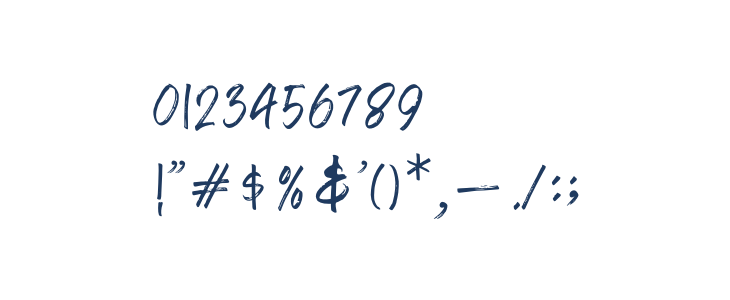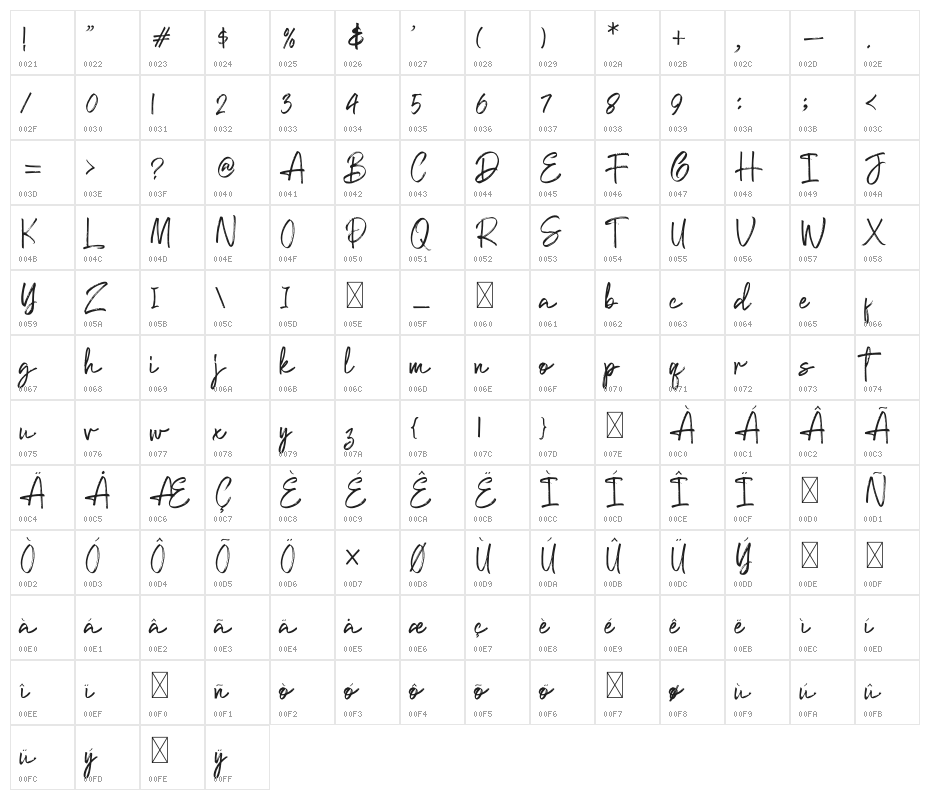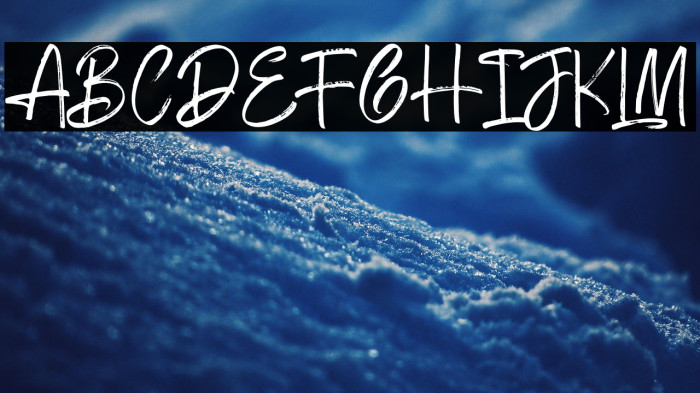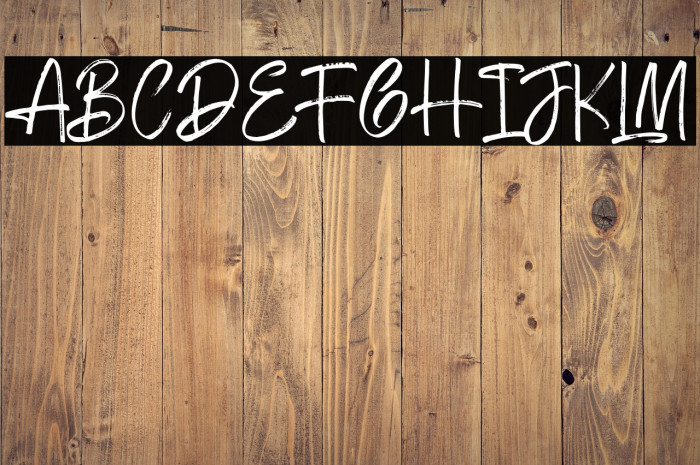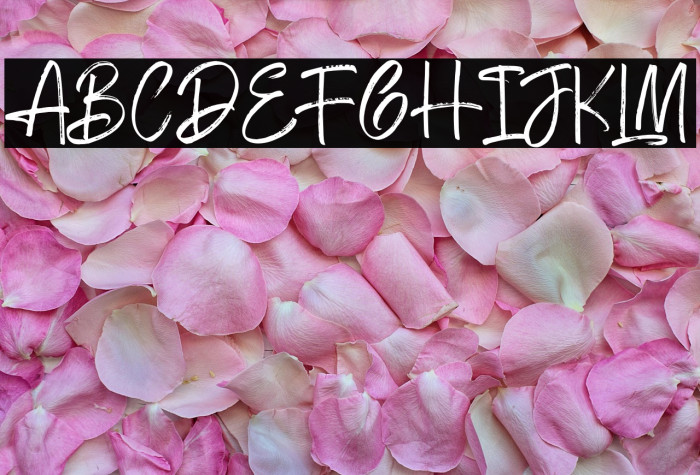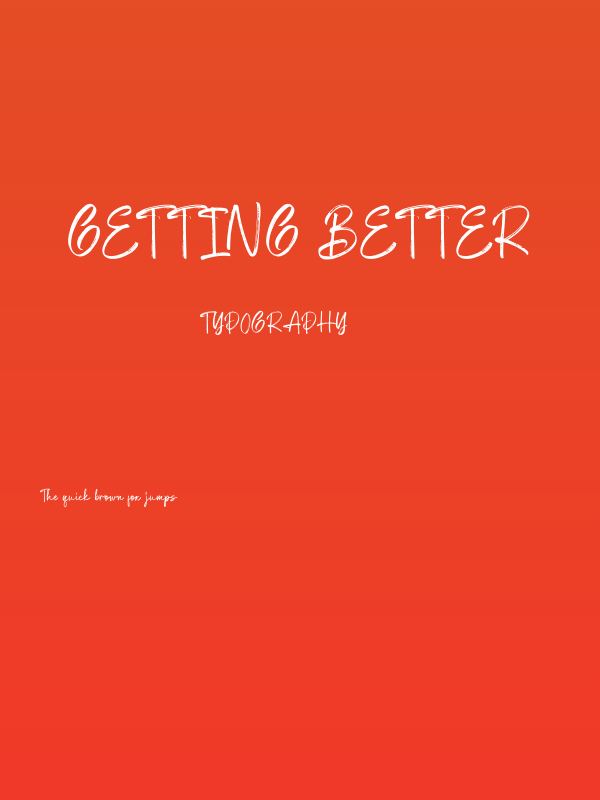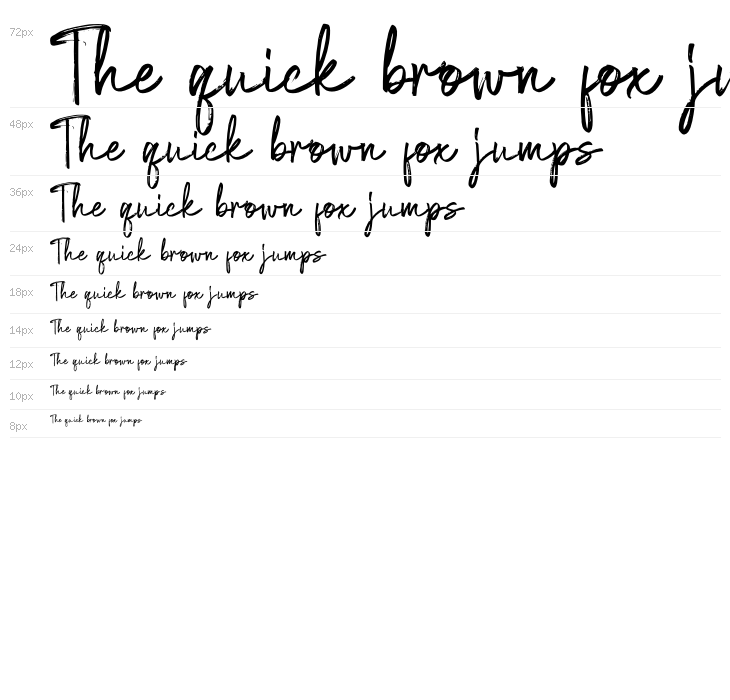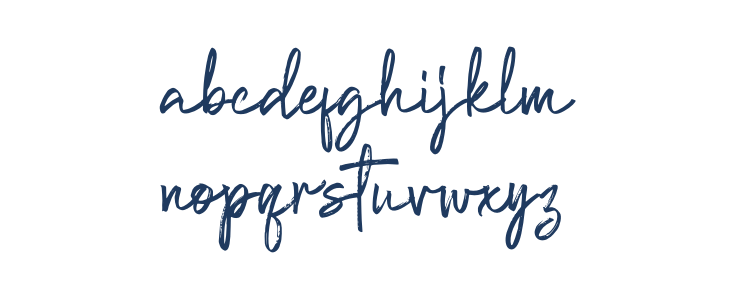
Getting Better Font
Getting Better Description
This font features a dynamic and expressive handwritten style, characterized by its brush-like strokes and casual elegance. The uppercase letters are bold and slightly irregular, giving a sense of spontaneity and energy. The lowercase letters maintain a fluid and connected appearance, enhancing the handwritten feel. Numbers and special characters are crafted with the same artistic flair, ensuring consistency across all glyphs. The overall design is both modern and playful, making it suitable for creative projects that require a personal touch.
| Use Case | Logos, Headlines, Creative projects |
| Proposed Projects | Ideal for greeting cards, invitations, branding projects, and social media graphics where a personal and artistic touch is desired. |